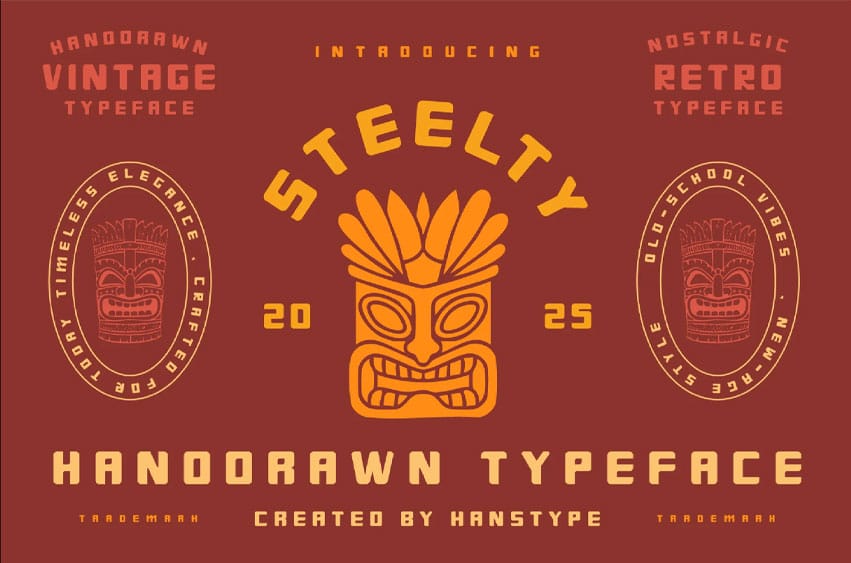
Steelty Font is a striking display sans-serif typeface designed to make an impact.
Its strong, clean lines and sharp angles exude confidence and authority, making it the perfect choice for headlines, branding, posters, and digital designs that demand attention.